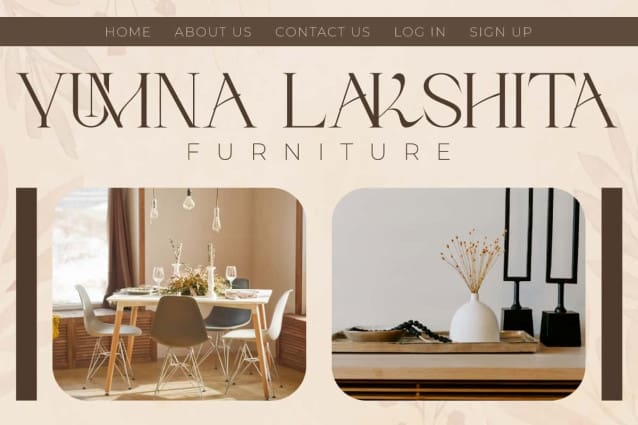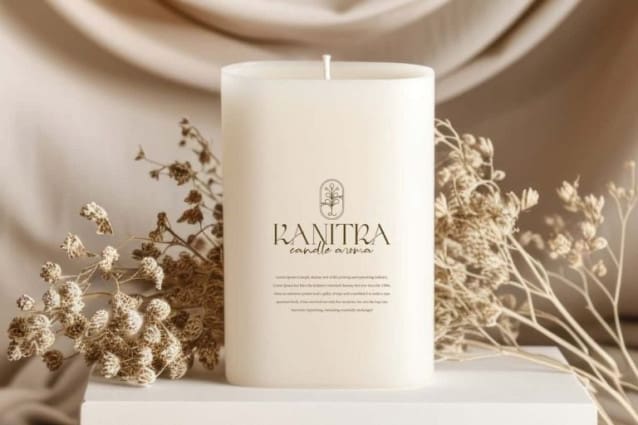
Granible Fano Font
Granible Fano Font is an elegant and stylish display font. It has a luxurious look that can be used for your design needs. This type of font is very suitable for blogs, brochure, card designs, furniture, headers, invitations, label, logos, quotes, screen print, signage, social media feed, stationery, stickers, tags, titles, watermarks, websites, and much more.
Granible Fano Font is a stunning thin typeface with subtle and elegant ligatures offering a visually appealing aesthetic but also providing flexibility in design. This would be perfect for artisan soap maker, fashion, graphic designs, interior designs, home furniture, photography, salon, spa, writers, and more.